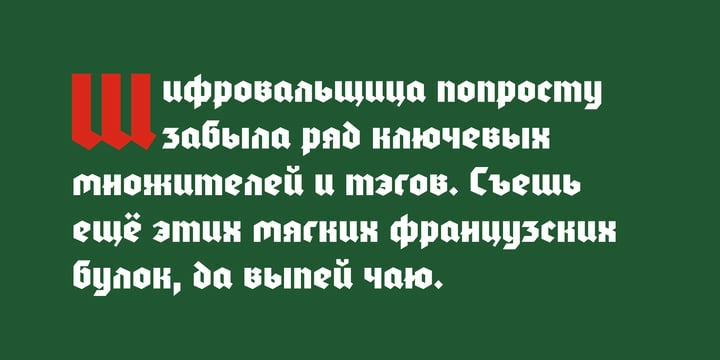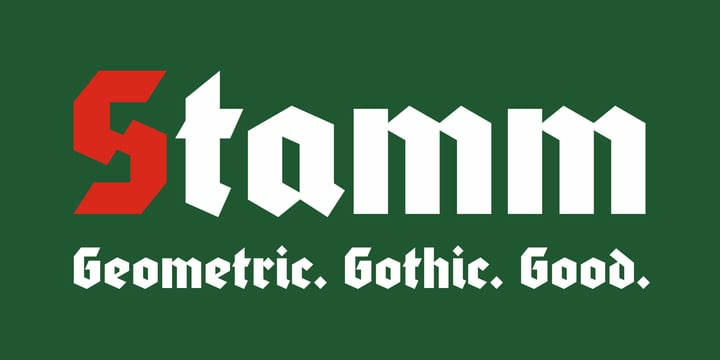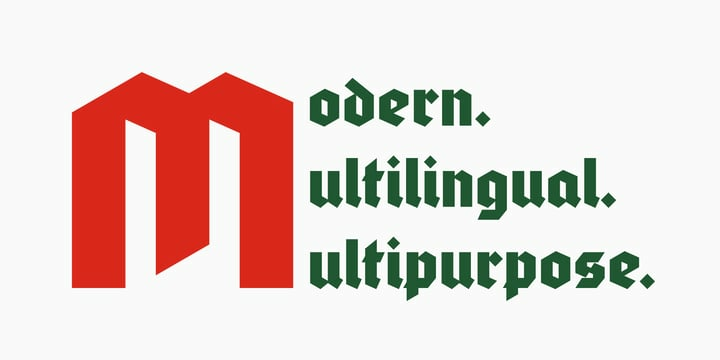
Stamm Font
Stamm FontBased on Element by Max Bittrof, Stamm takes the next step in adaptation to modern environment. Using it’s own construction logic it makes the design far more consistent and considerably expands the character set, supporting hundreds of languages, including Vietnamese and extended Cyrillic. Generous amount of OpenType features allows various localization options, automatic fractions, super- and subscripts, oldstyle and tabular figures, small caps and ligatures to suit almost every need.